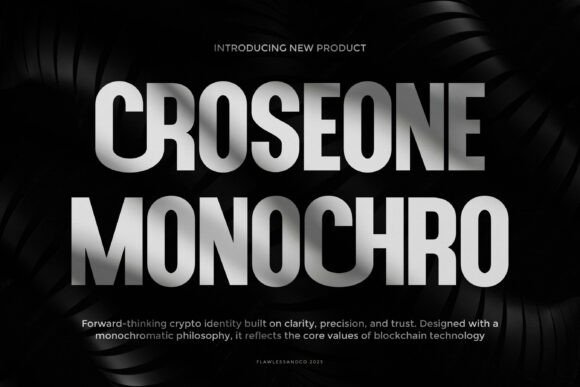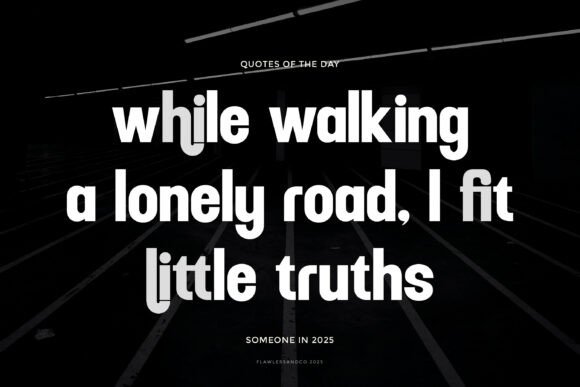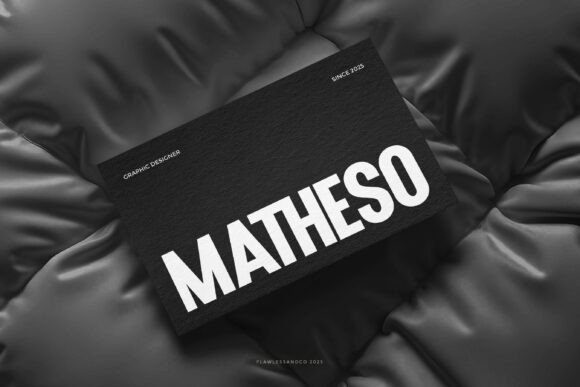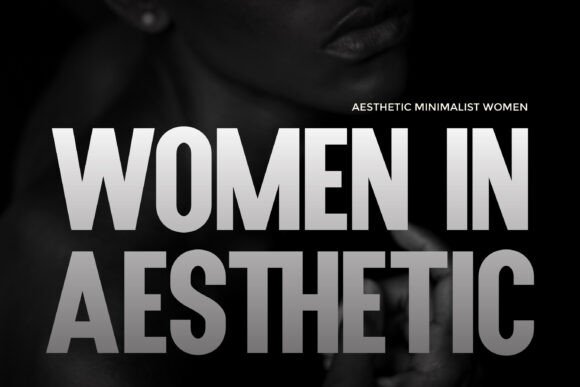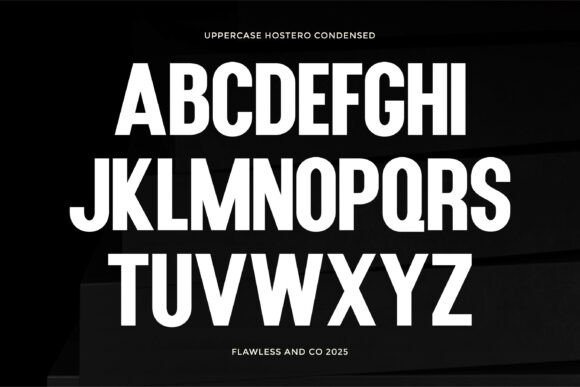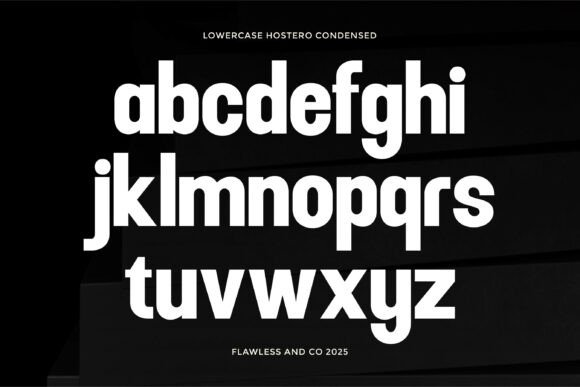
Unlock the Power of Compact Communication with Hostero Font
Have you ever stared at a blank page, struggling to convey a bold message in a limited space? We’ve all been there – whether it’s crafting a compelling social media post, designing a website header, or creating a sleek app interface. That’s where the Hostero Font comes in – a sleek, condensed sans-serif typeface designed to cut through the noise and grab attention.
With its tall x-height and tight tracking, the Hostero Font is the perfect tool for designers who need to convey confidence and efficiency in a cluttered digital landscape. Its versatility and hardworking nature make it a valuable addition to any design toolkit, allowing you to create impactful headlines, clean infographics, and bold website headers that stand out from the crowd.
Hostero Font Key Features
- Font Family: Hostero is a sans-serif font family designed for use in digital media.
- Character Set: The font includes a wide range of characters, including Latin, Cyrillic, and Greek alphabets, as well as punctuation and symbols.
- Size and Resolution: Hostero Font is designed for use at a range of sizes, from 8pt to 72pt, and is optimized for display at resolutions up to 300 DPI.
- Unique Characteristics: Hostero Font features a clean and modern design with a unique blend of geometric and organic elements, making it suitable for a wide range of applications, from digital interfaces to print materials.
Designer Review: Hostero Font
Hostero Font has been a recent addition to my typography collection, and I must say, it has its fair share of strengths and weaknesses. Let’s dive into the details!
- Unique character: Hostero Font boasts a distinctive character that sets it apart from other sans-serif fonts. Its rounded edges and soft curves create a friendly, approachable feel.
- Legibility: The font is highly legible, making it perfect for body text, headlines, or even signage.
- Flexibility: Hostero Font can be used in a variety of settings, from modern to traditional designs, without looking out of place.
- Limited expressiveness: While Hostero Font is highly legible, it may lack the expressiveness and personality that some other fonts possess.
- Not ideal for bold statements: Due to its rounded edges, Hostero Font may not be the best choice for making bold statements or conveying strong emotions.
Overall, I would rate Hostero Font 4 out of 5 stars. It’s a solid, reliable choice for many design projects, but may not be the best fit for every situation. If you’re looking for a friendly, approachable font that’s easy to read, Hostero Font is definitely worth considering.
Practical Application Guide for Hostero Font
Getting the Most Out of Hostero Font
Here are some tips for getting the most out of Hostero Font:
1. Experiment with different font sizes and styles to create visual interest.
2. Use Hostero Font in combination with other fonts to create a unique visual identity.
3. Apply Hostero Font to headings and titles to create a clear hierarchy.
Hostero Font is commonly used for:
1. Branding and logos
2. Headings and titles
3. Marketing materials and advertisements
4. Digital products and e-books